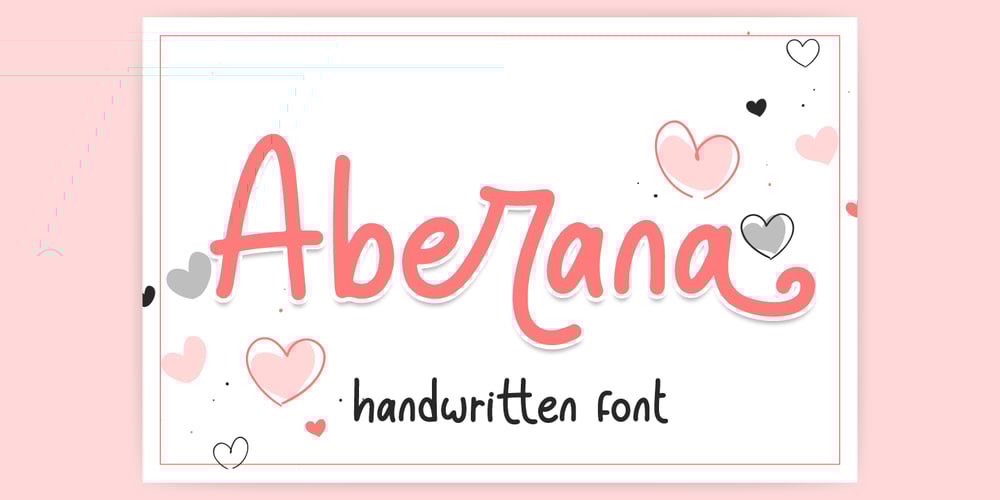
Aberana Font Family was designed by Fadli Ramadhan Iskandar and published by Attype Studio. Aberana contains 1 styles and family package options. Aberana is lovely display font, including stylistic alternates that perfect for any combination for your design. Aberana perfectly macth for desgign with valentine theme, any product like book cover, t-shirt, branding, promotion, social media post, quotes, wedding, photography and more. What’s included: – Multilingual Support- Support Opentype features—Hope you enjoy with our font!Attype Studio